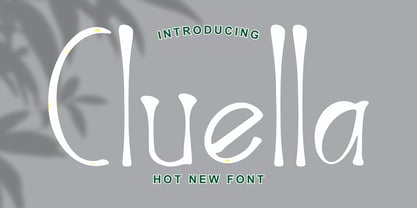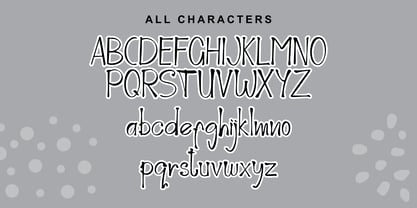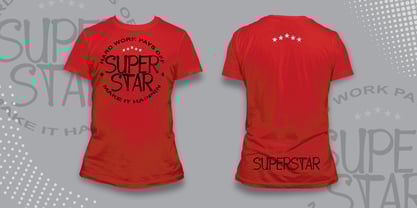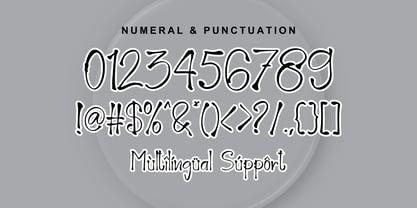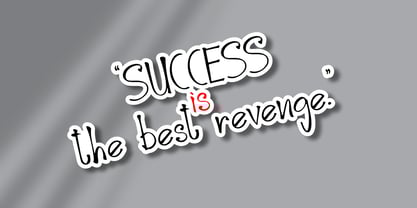
Cluella
by Andrey Font Design
The Cluella Font Family was designed by Stephanus Prabowo and published by Andrey Font Design. Cluella contains 2 styles and family package options.
Introducing a gorgeously natural, Handwritten Font that breathes life into your designs. With its distinct handmade essence, it effortlessly elevates your creations, imparting a beautiful organic touch to every detail. This font shines in a host of design environments, whether it’s heightening the elegance of invitations, amplifying the allure of book covers, or enhancing your craft projects. With PUA encoding, all glyphs are within your reach, ensuring a personalized touch that truly caters to your design objectives. This Handwritten Font is the cornerstone of all things charming and rustic in design.